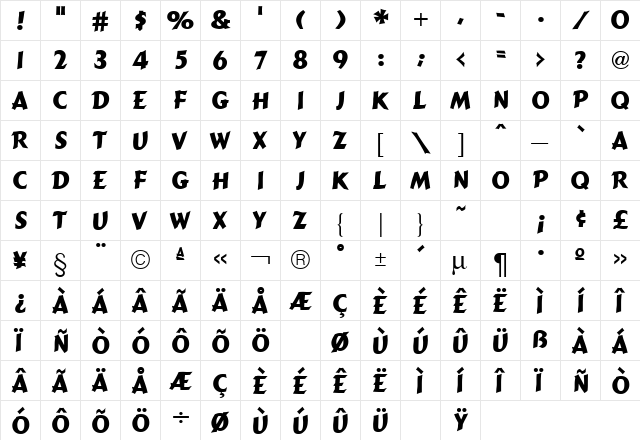
Cartoon Bold Regular
Design Context for Cartoon Bold Typeface
Cartoon Bold has an approachable, lighthearted character — its loose, expressive forms are well-suited to children's content, casual branding, and fun-first design.
Well-suited to food and beverage brands with personality, educational materials, and fun-forward identities.
Font Pairing: Pairs well with a rounded or humanist sans for body copy, maintaining the friendly tone without relying on Cartoon Bold to carry extended reading.
Pro Tip: Use Cartoon Bold at larger display sizes where its expressive character can land. Pair with a clean, simple sans for body copy to maintain readability.